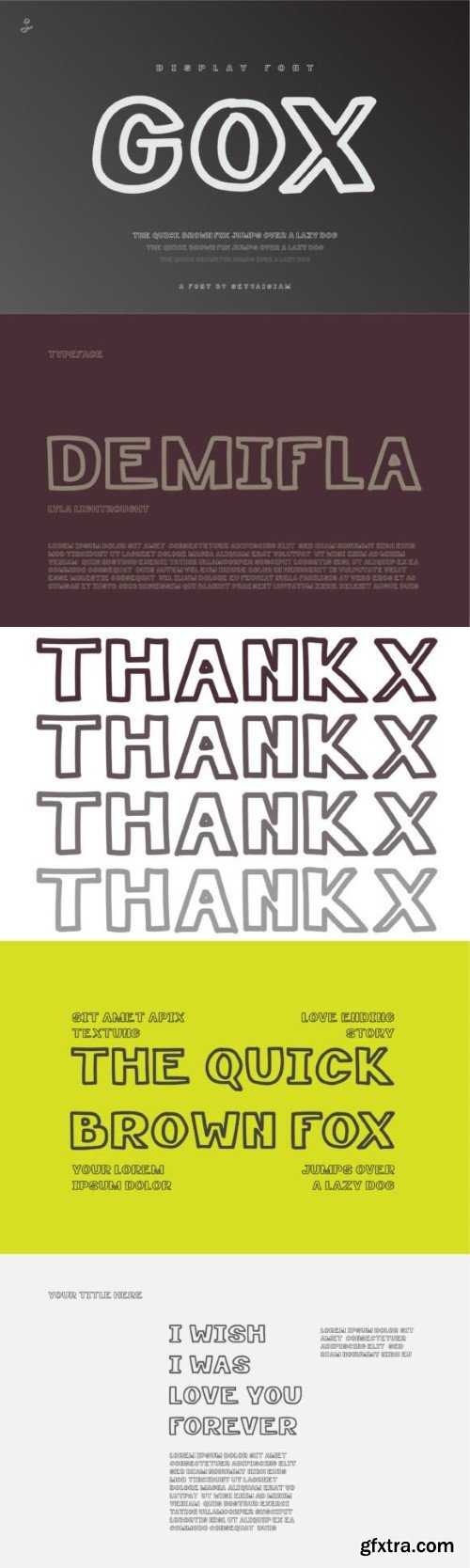
戈克字体
Gox is a bold and eye-catching display font that demands attention. With clean lines and a modern style, it makes your text stand out effortlessly. Ideal for headlines, posters, or any design where impact is key, Gox adds a touch of contemporary flair. Simplistic yet powerful, Gox is the go-to choice for making a statement in your visual projects.